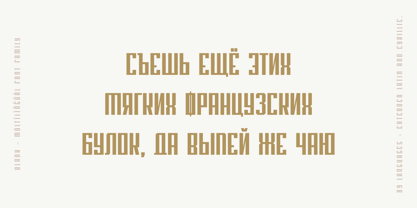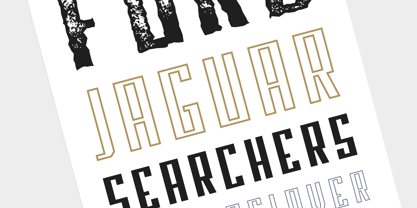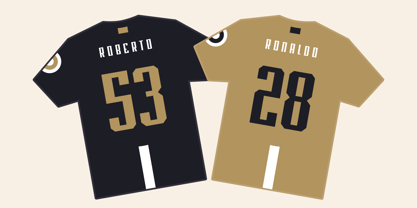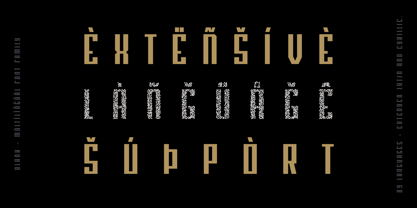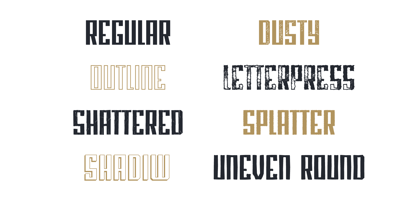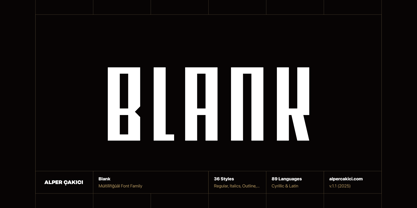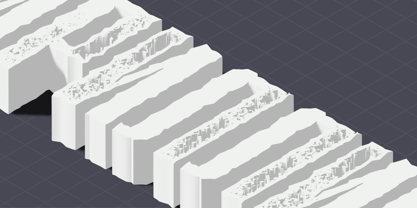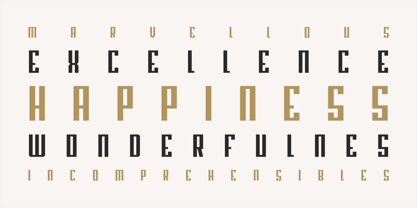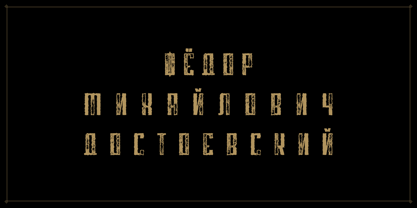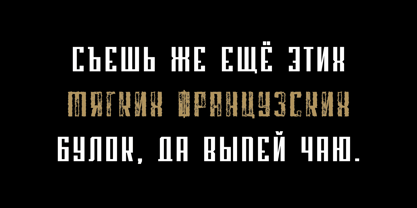
Blank
by AlperCakici
The Blank Font Family was designed by Alper Çakıcı and published by AlperCakici. Blank contains 40 styles and family package options.
Blank is a modern and versatile typeface designed for clarity, balance, and impact across all mediums. With excellent kerning and carefully refined letterforms, it performs beautifully in both digital and print environments — from sleek web interfaces to bold editorial layouts. Featuring complete Cyrillic language support, Blank enables seamless multilingual communication, making it a powerful choice for international brands, creative professionals, and design studios. Its unique design blends timeless geometric proportions with subtle contemporary details, achieving a clean yet distinctive look that sets it apart from typical sans-serifs. Whether used for striking headlines, polished branding, or refined body text, Blank delivers consistent readability and sophistication. Perfect for modern design projects, Blank combines functionality with aesthetic precision — a reliable companion for designers seeking elegance, versatility, and performance in one unified font family.
Designers: Alper Çakıcı
Publisher: AlperCakici
Foundry: AlperCakici
Design Owner: AlperCakici